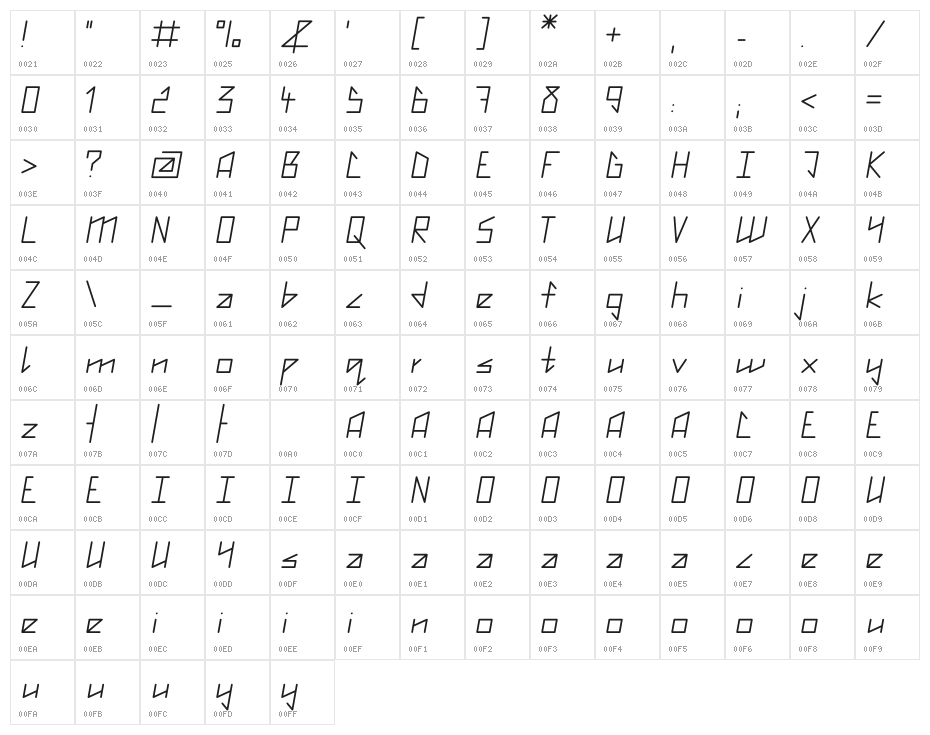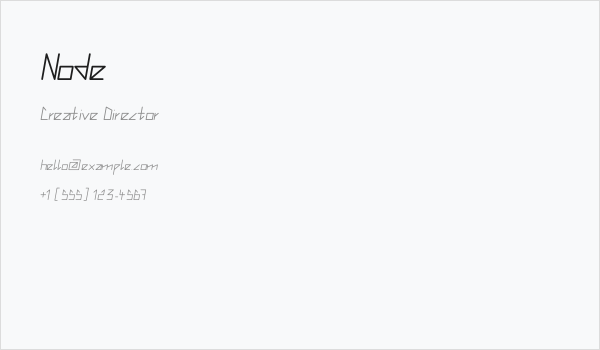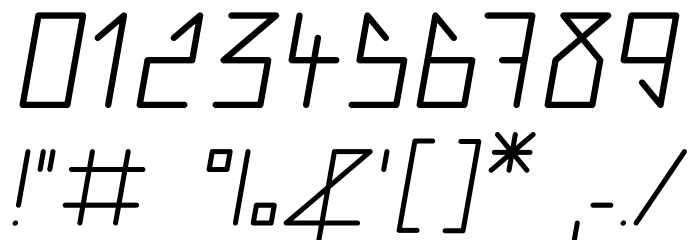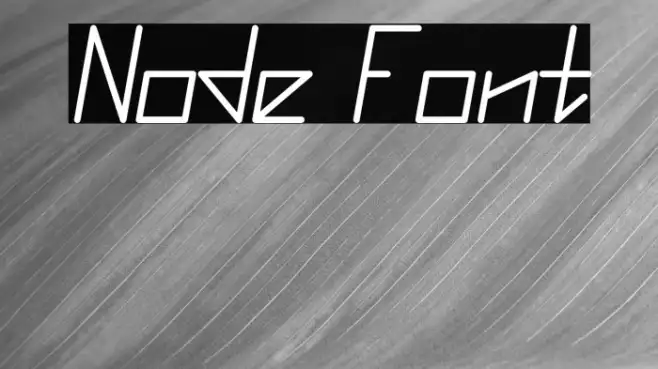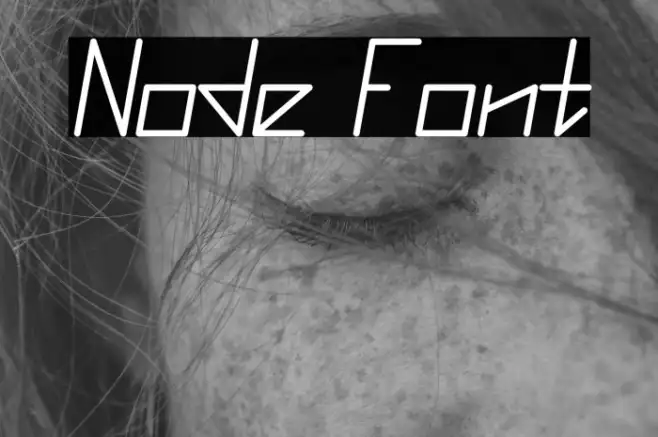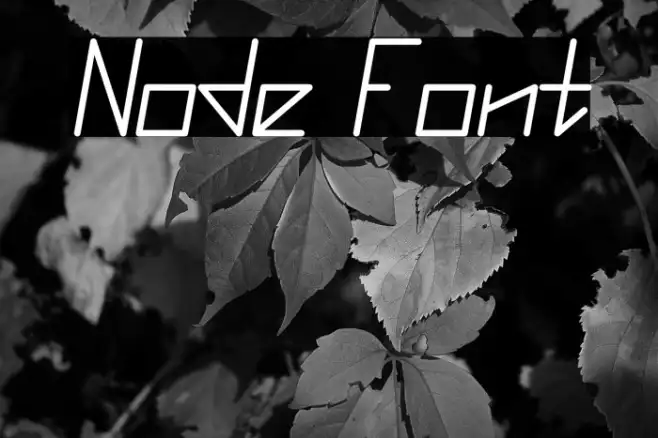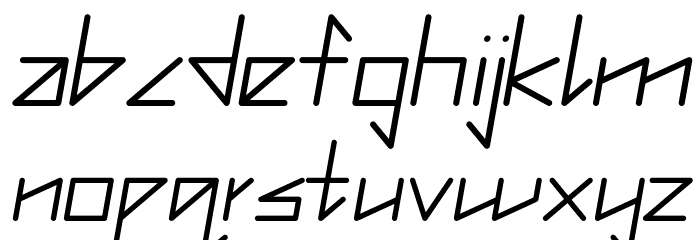
Node Font
Node Description
This font features a unique, angular design with a futuristic and geometric aesthetic. The characters are composed of straight lines and sharp angles, giving it a distinct, edgy appearance. The uppercase letters are bold and prominent, while the lowercase letters maintain a consistent style with slightly more curves. Numbers and special characters follow the same angular theme, ensuring uniformity across all glyphs. The font's design is reminiscent of digital or sci-fi themes, making it suitable for projects that require a modern and unconventional look. Its clean lines and structured form make it highly legible, even at smaller sizes.